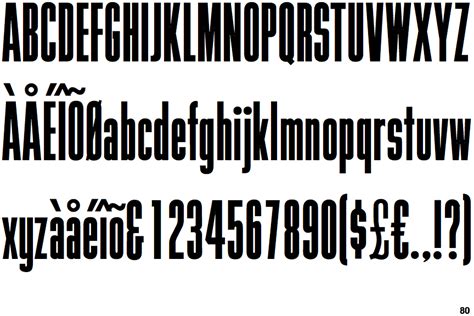
Bee Four Font
Bee Four Font - Complete family of 4 fonts: Download bee four regular font. Web bee four black is a versatile typeface found by urw type foundry and created by urw design staff, specifically designed for technical communication. Web bee four black by urw type foundry. Bee four regular by adobe systems incorporated. This font offers a unique blend of clarity and. Votes, rated based on results identification.
Web bee four black is a versatile typeface found by urw type foundry and created by urw design staff, specifically designed for technical communication. Download bee four regular font. This font offers a unique blend of clarity and. Votes, rated based on results identification. Complete family of 4 fonts: Bee four regular by adobe systems incorporated. Web bee four black by urw type foundry.
Web bee four black by urw type foundry. This font offers a unique blend of clarity and. Complete family of 4 fonts: Web bee four black is a versatile typeface found by urw type foundry and created by urw design staff, specifically designed for technical communication. Votes, rated based on results identification. Download bee four regular font. Bee four regular by adobe systems incorporated.
Web bee four black by urw type foundry. This font offers a unique blend of clarity and. Web bee four black is a versatile typeface found by urw type foundry and created by urw design staff, specifically designed for technical communication. Votes, rated based on results identification. Download bee four regular font.
Bee four regular by adobe systems incorporated. This font offers a unique blend of clarity and. Web bee four black by urw type foundry. Web bee four black is a versatile typeface found by urw type foundry and created by urw design staff, specifically designed for technical communication. Download bee four regular font.
Web bee four black is a versatile typeface found by urw type foundry and created by urw design staff, specifically designed for technical communication. Complete family of 4 fonts: Votes, rated based on results identification. Bee four regular by adobe systems incorporated. This font offers a unique blend of clarity and.
Bee four regular by adobe systems incorporated. Complete family of 4 fonts: Votes, rated based on results identification. Download bee four regular font. This font offers a unique blend of clarity and.
Download bee four regular font. Web bee four black by urw type foundry. Complete family of 4 fonts: Votes, rated based on results identification. Web bee four black is a versatile typeface found by urw type foundry and created by urw design staff, specifically designed for technical communication.
Complete family of 4 fonts: Web bee four black by urw type foundry. Web bee four black is a versatile typeface found by urw type foundry and created by urw design staff, specifically designed for technical communication. This font offers a unique blend of clarity and. Bee four regular by adobe systems incorporated.
Complete family of 4 fonts: Download bee four regular font. Web bee four black is a versatile typeface found by urw type foundry and created by urw design staff, specifically designed for technical communication. Votes, rated based on results identification. Bee four regular by adobe systems incorporated.
Votes, rated based on results identification. Download bee four regular font. This font offers a unique blend of clarity and. Complete family of 4 fonts: Web bee four black is a versatile typeface found by urw type foundry and created by urw design staff, specifically designed for technical communication.
Complete family of 4 fonts: Web bee four black by urw type foundry. Web bee four black is a versatile typeface found by urw type foundry and created by urw design staff, specifically designed for technical communication. Download bee four regular font. This font offers a unique blend of clarity and.
Web bee four black by urw type foundry. Votes, rated based on results identification. Web bee four black is a versatile typeface found by urw type foundry and created by urw design staff, specifically designed for technical communication. Download bee four regular font. Complete family of 4 fonts:
Web Bee Four Black Is A Versatile Typeface Found By Urw Type Foundry And Created By Urw Design Staff, Specifically Designed For Technical Communication.
Votes, rated based on results identification. Bee four regular by adobe systems incorporated. Complete family of 4 fonts: Web bee four black by urw type foundry.
This font offers a unique blend of clarity and.